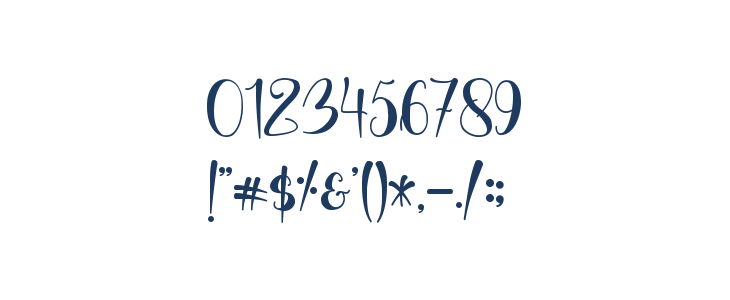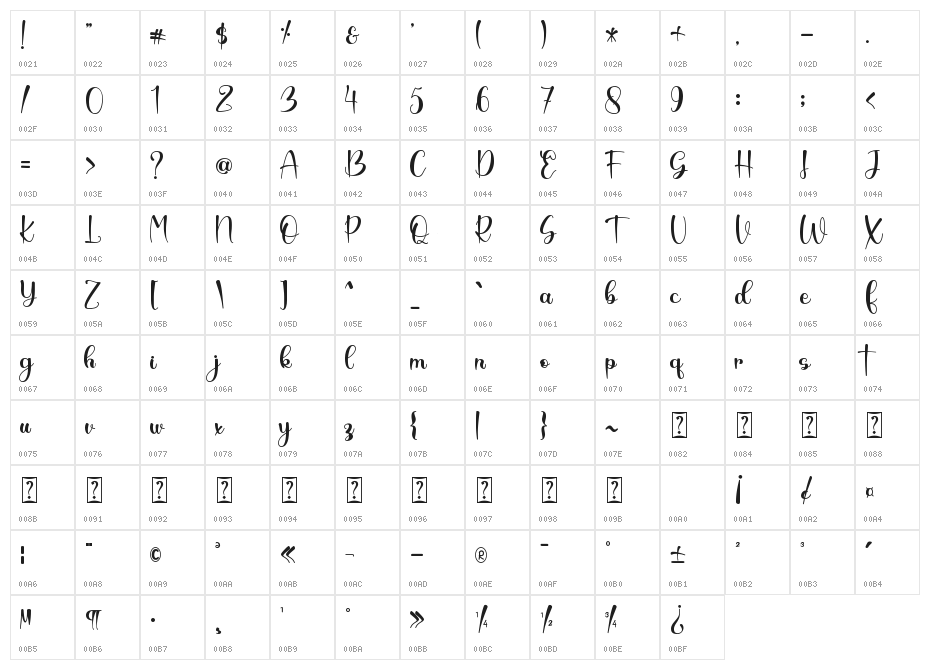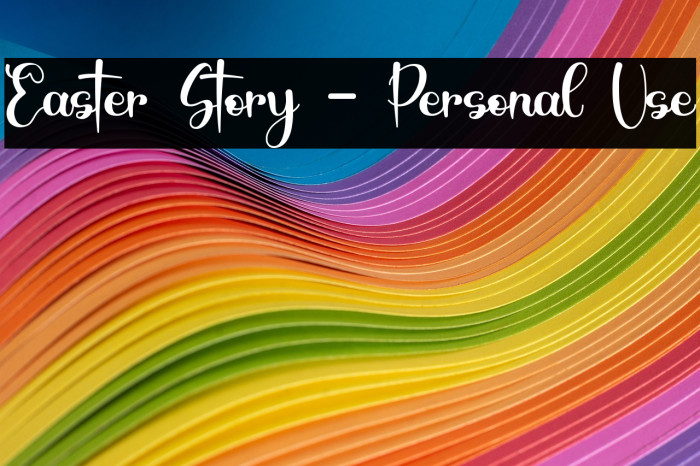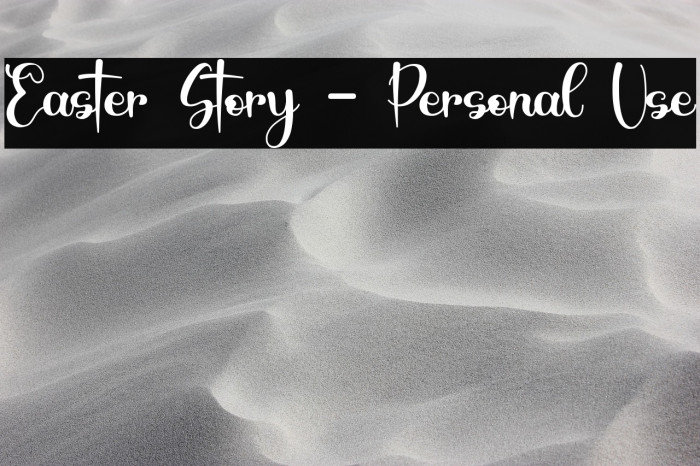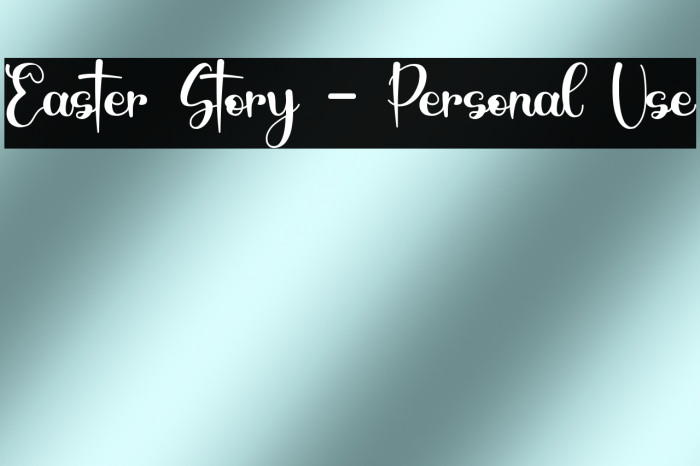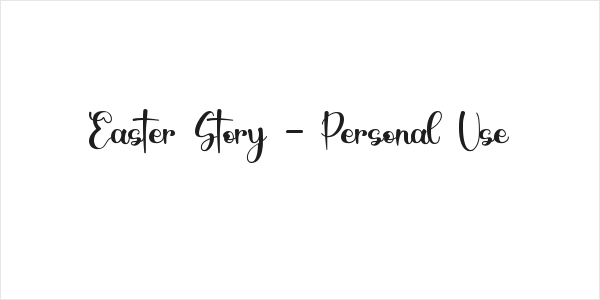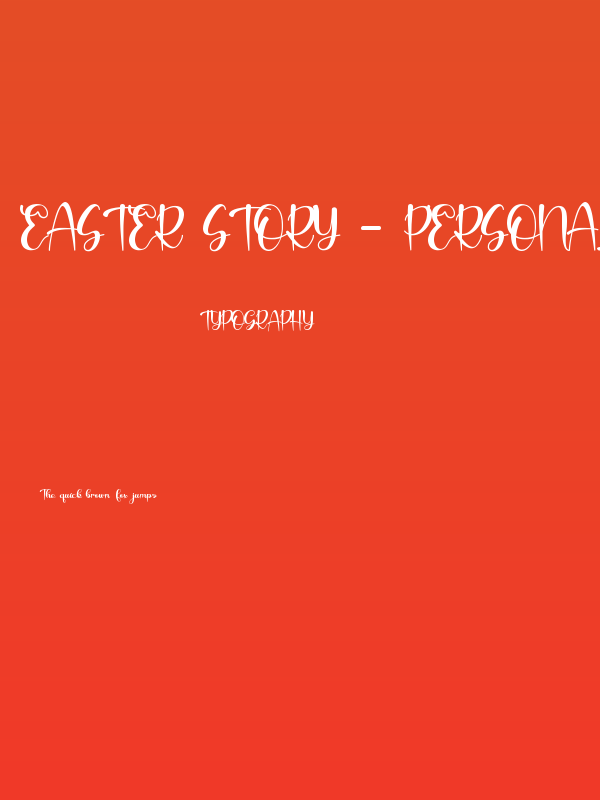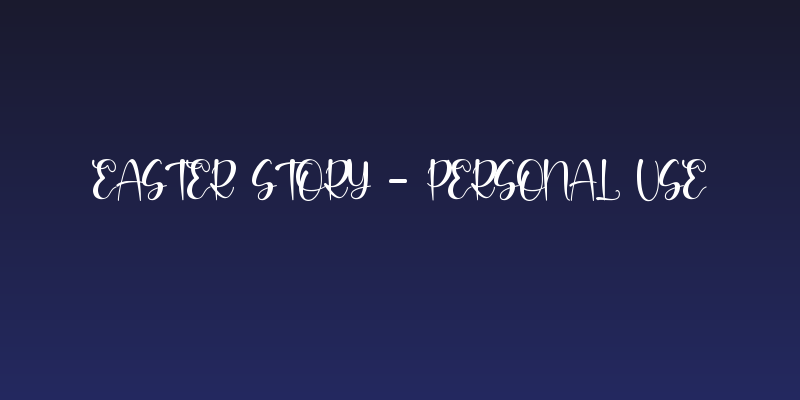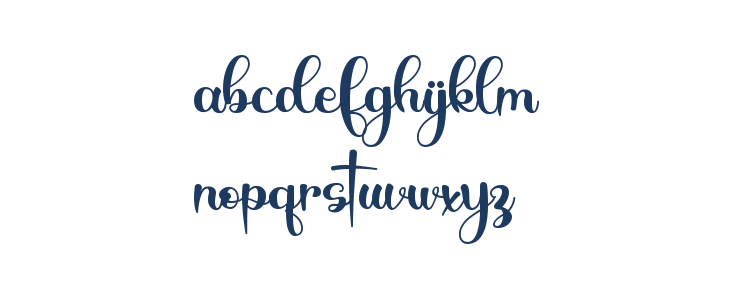
Easter Story - Personal Use Font
Easter Story - Personal Use Description
This font features a playful and whimsical script style with a hand-drawn appearance. The uppercase letters are tall and elegant, with exaggerated loops and flourishes that give them a lively character. The lowercase letters maintain a consistent flow, with rounded forms and smooth connections between strokes. The numerals are bold and slightly slanted, complementing the overall style. Special characters are creatively designed, adding to the font's decorative appeal. The font's unique personality makes it suitable for projects that require a touch of creativity and flair.